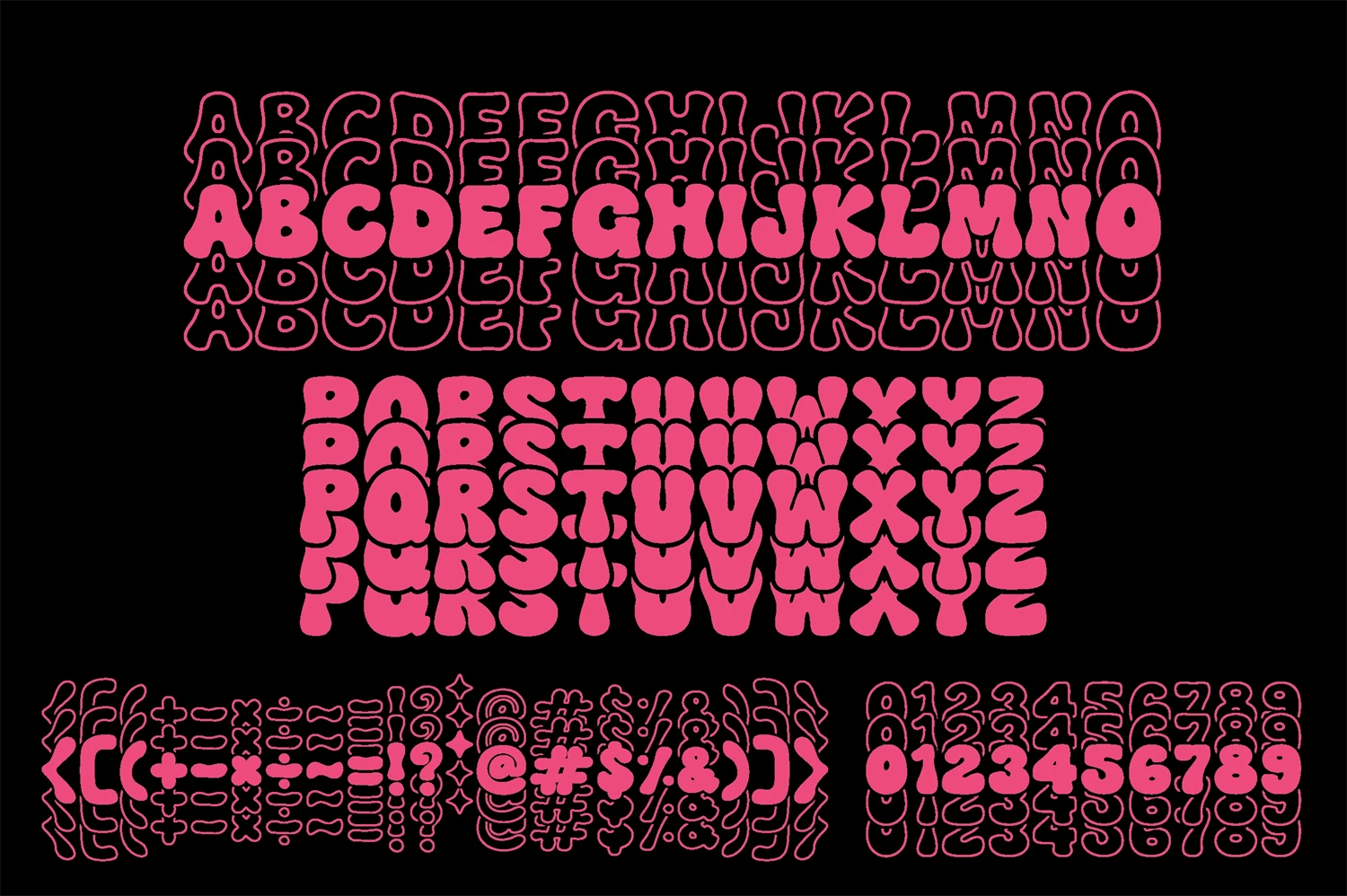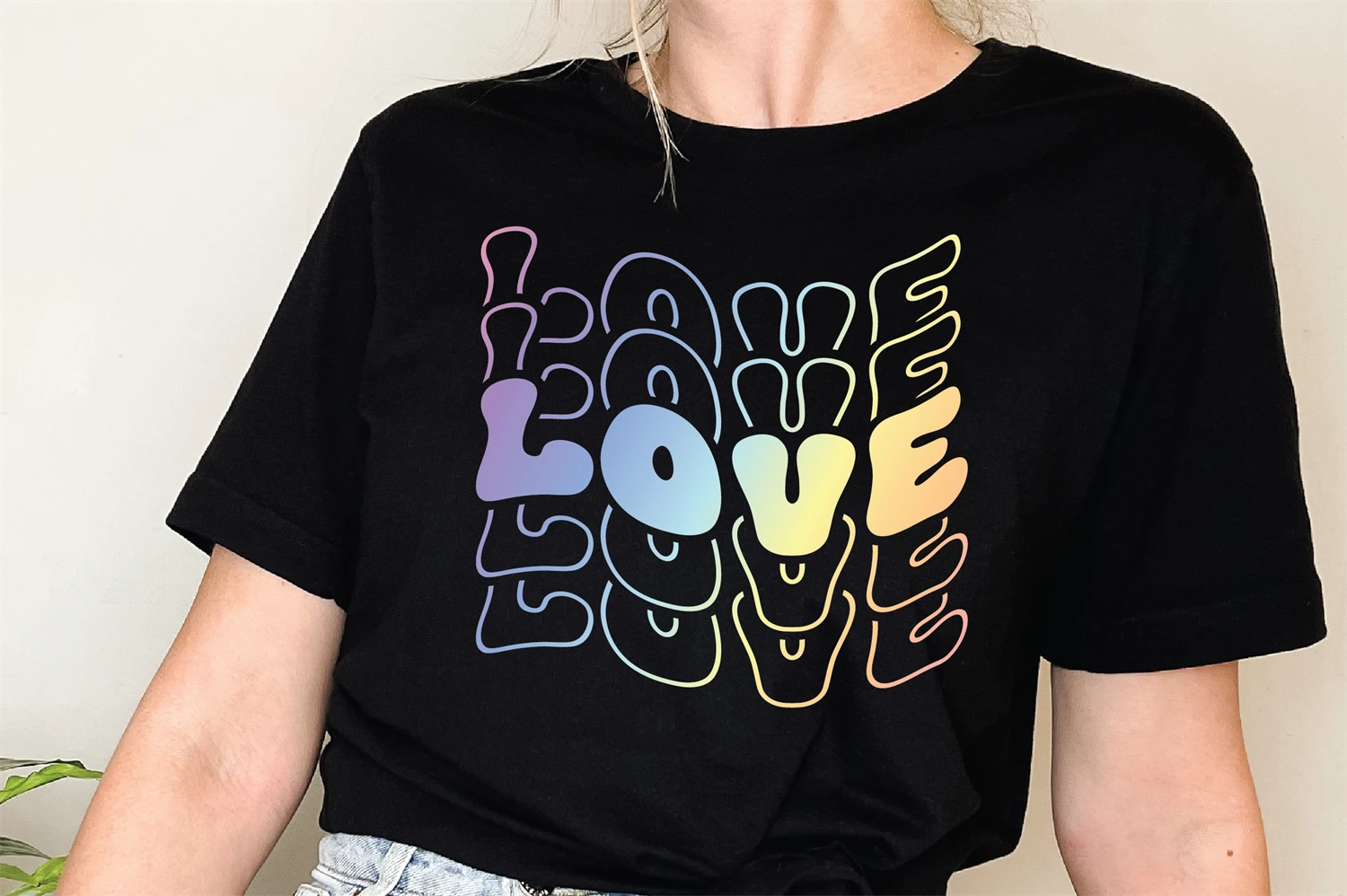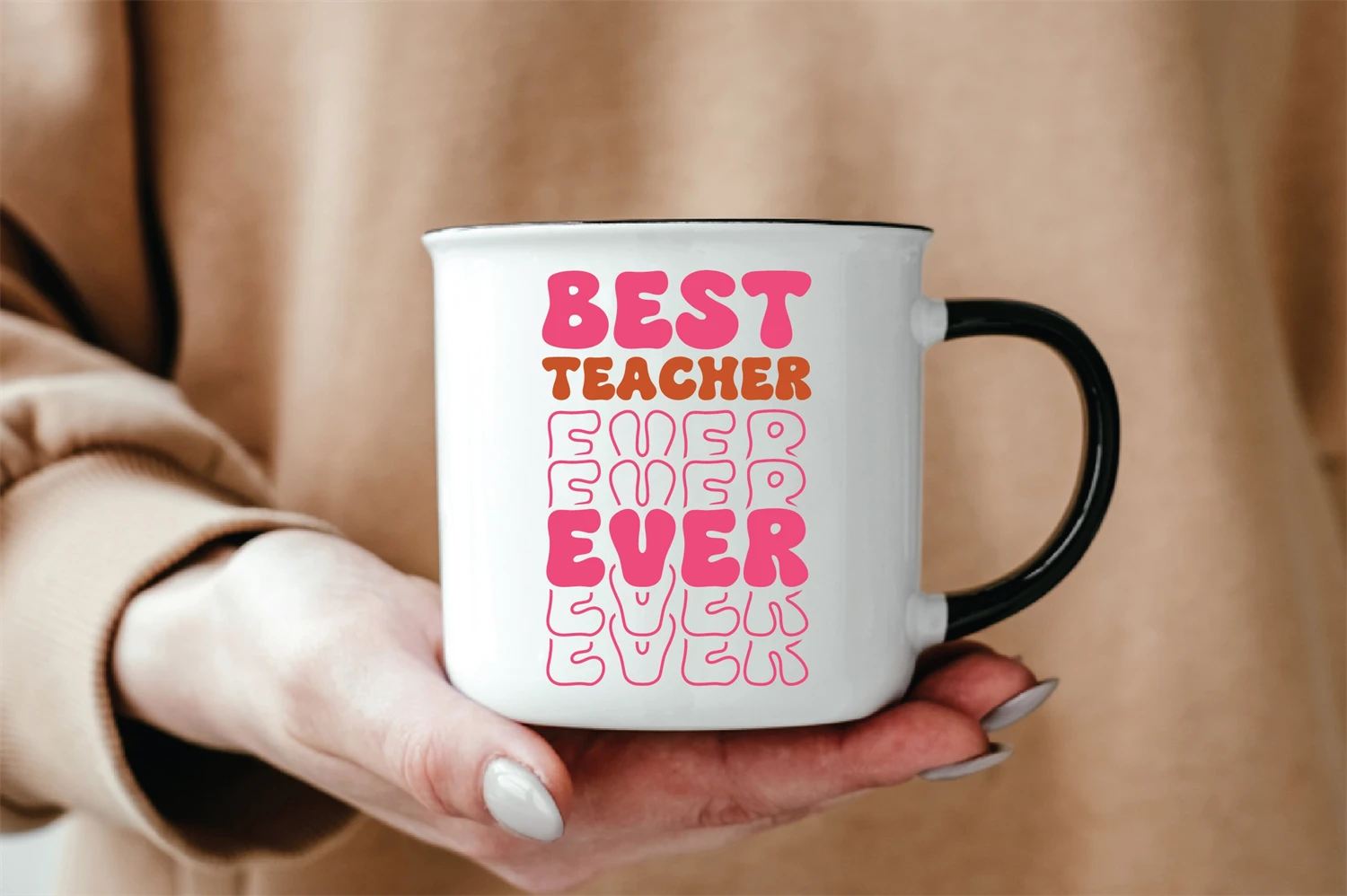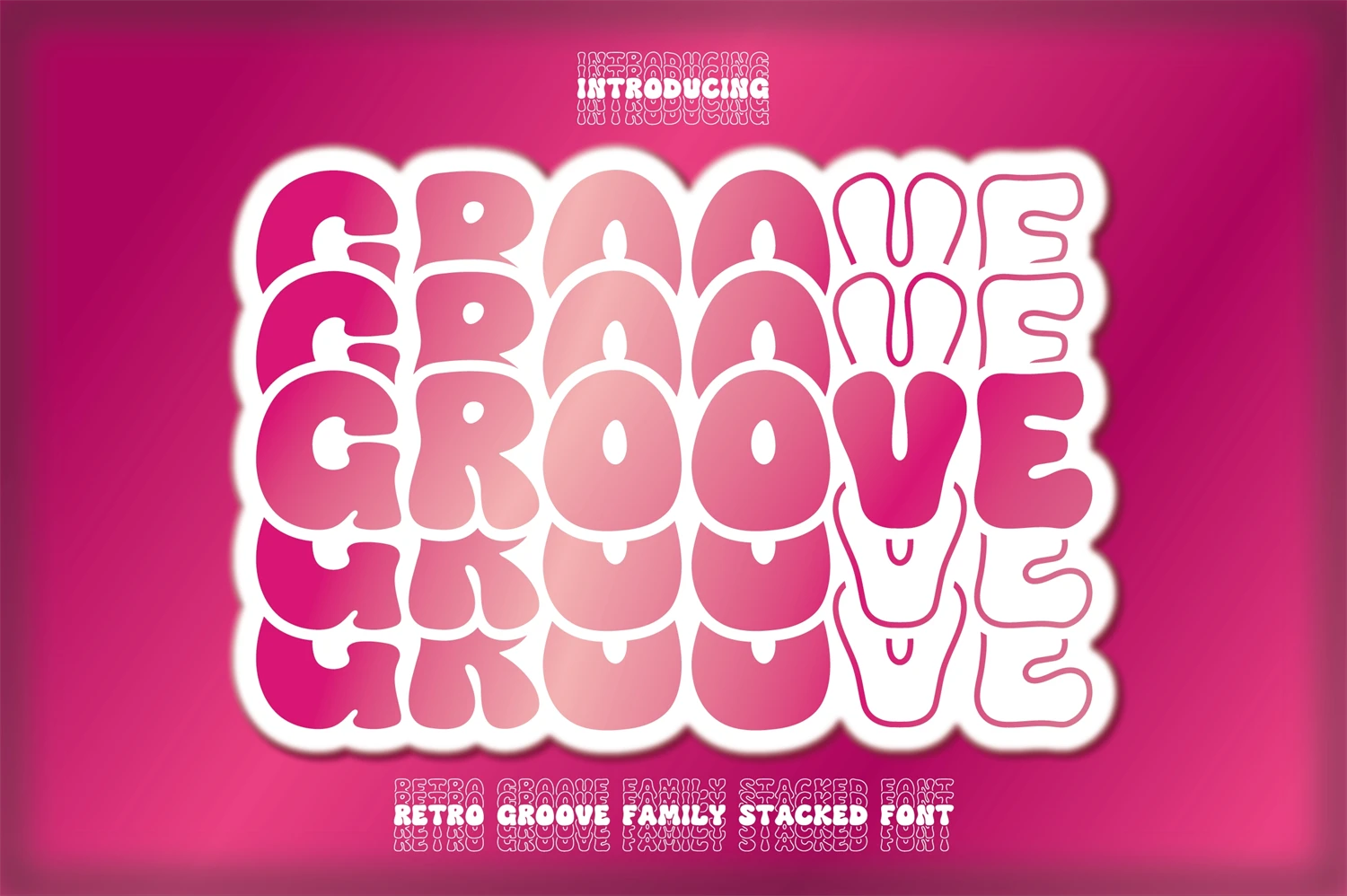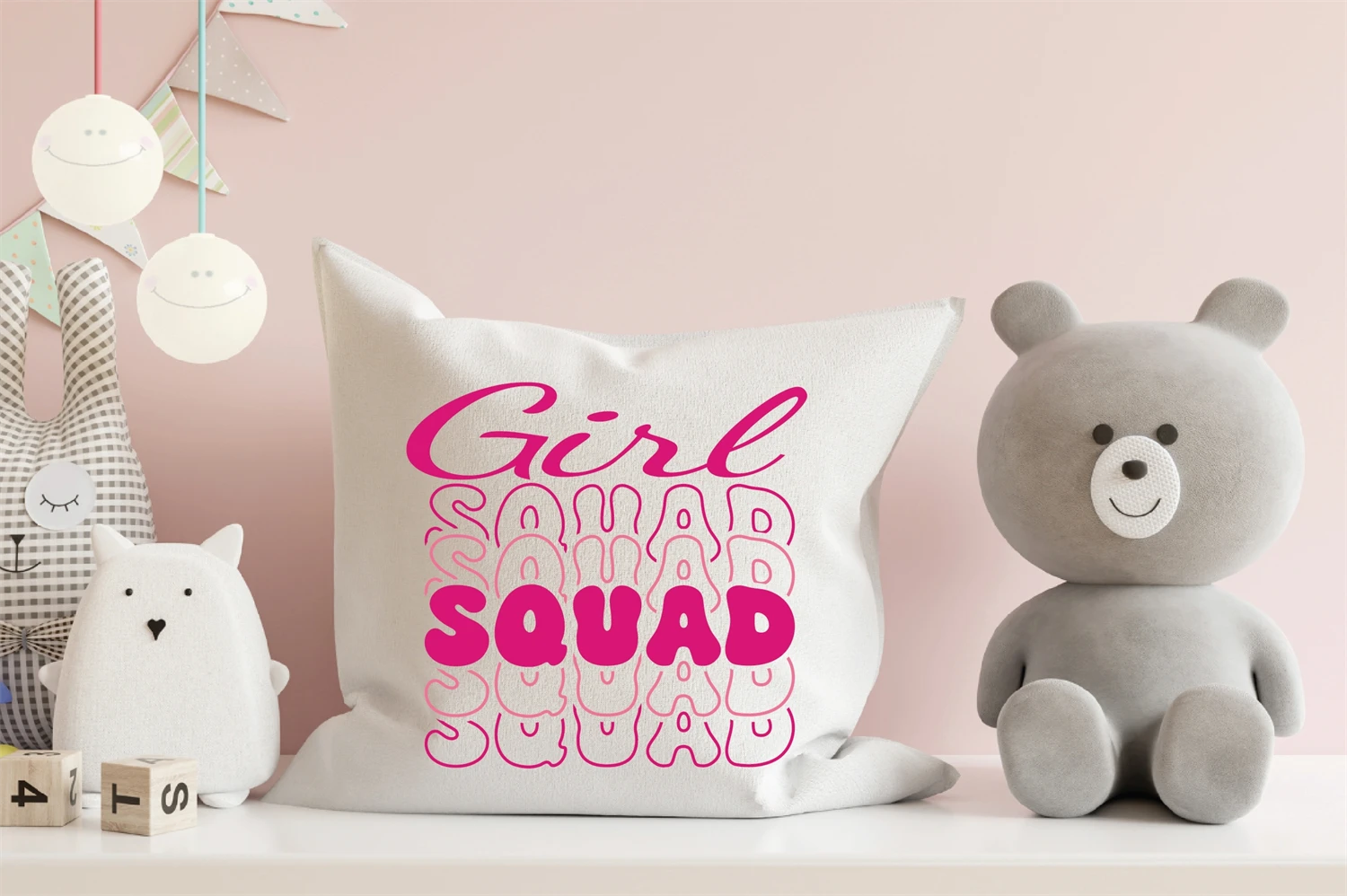
Retro Groove Stacked Font retro-stacked style. Easy to create design sport shirt name team, logo, head title. This font is encoded which means you can access all of the regular and bold with ease!